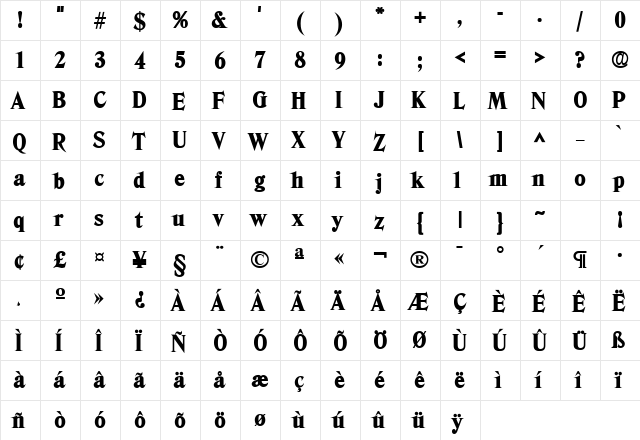
Blue Ridge Heavy SF Bold Font Preview
Blue Ridge Heavy SF Bold
Design Context for Blue Ridge Heavy SF Typeface
Blue Ridge Heavy SF is a composed and adaptable typeface that performs quietly and consistently across a wide range of design contexts. The heavy weight commands attention and anchors typographic hierarchies.